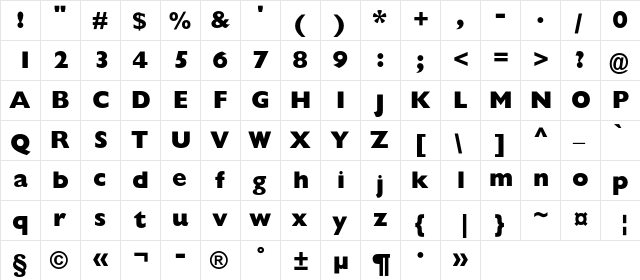
GillSansExtraBoldC Regular
Design Context for GillSansExtraBoldC Typeface
GillSansExtraBoldC takes a measured approach to typography — its balanced proportions and neutral character make it a reliable workhorse for both digital and print work. The heavy weight commands attention and anchors typographic hierarchies.